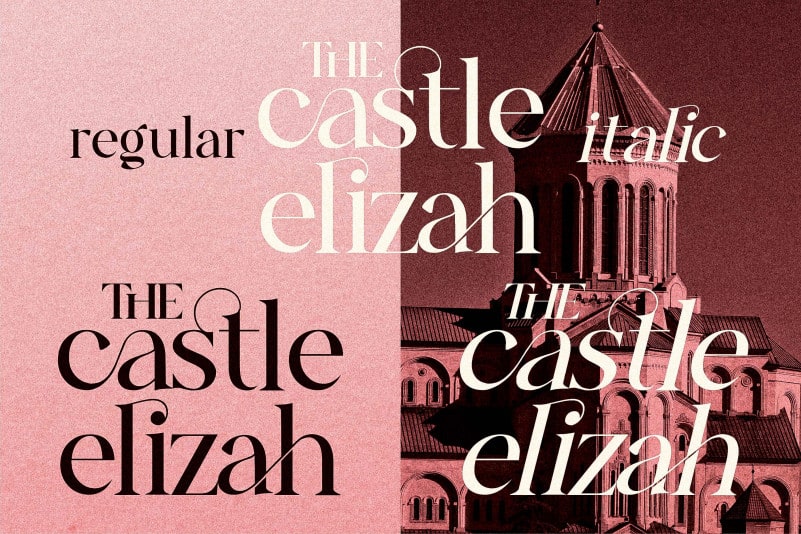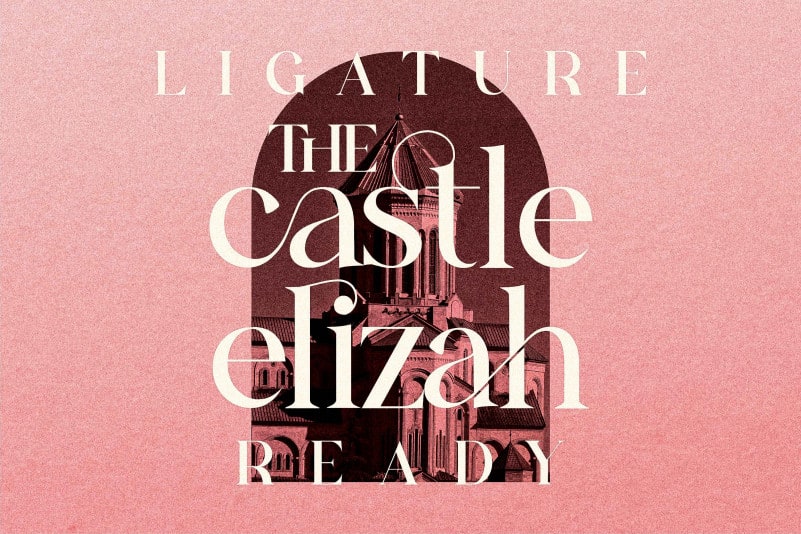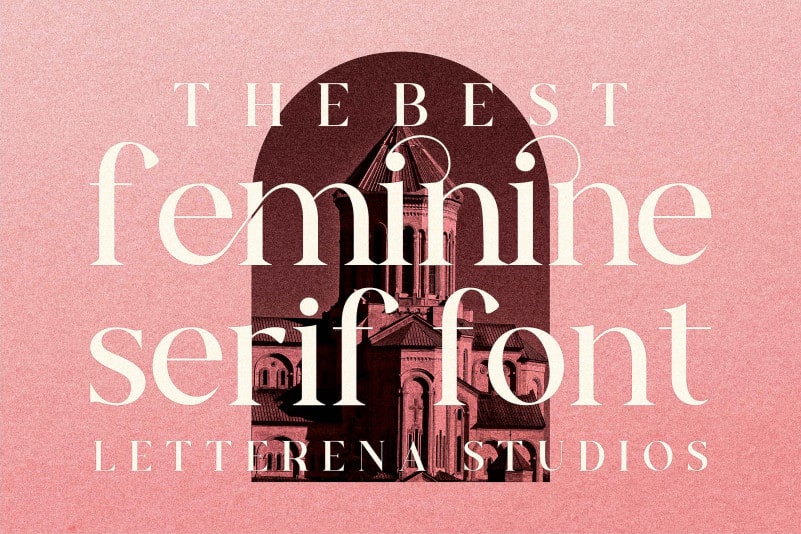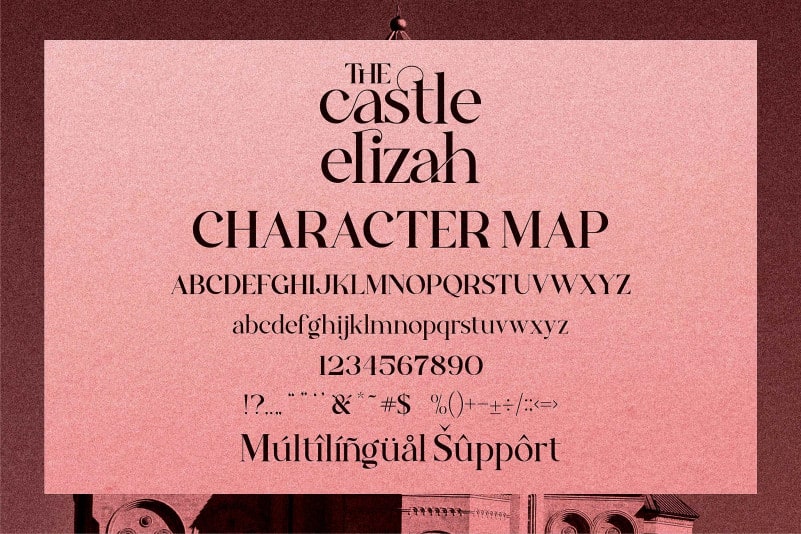
The Castle Elizah Serif Font
The Castle Elizah Serif Font is a bold and authentic serif font. Elegant and unique, this font will make each of your projects look outstanding.